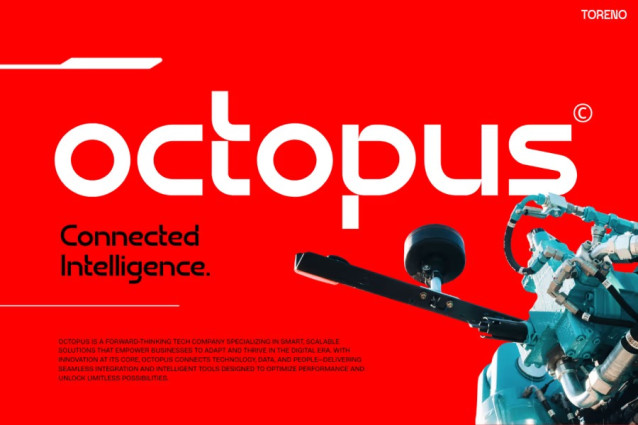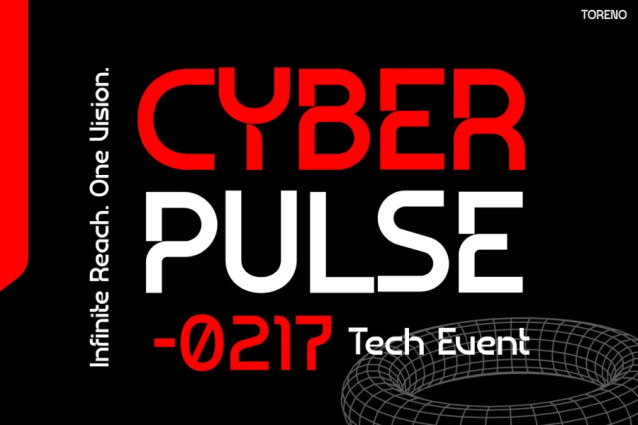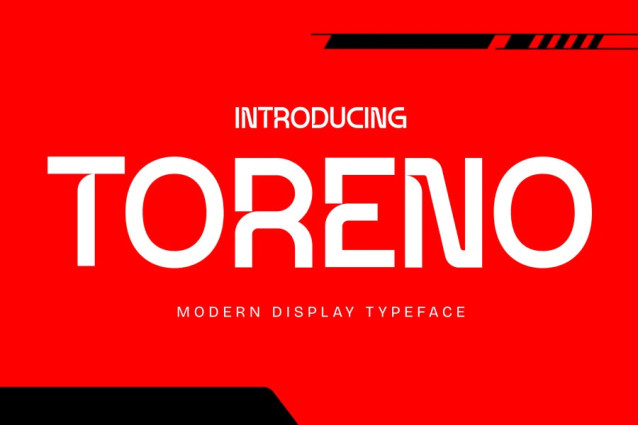
Toreno Font introduces a bold, modern style that instantly captures attention, and it also adds a clean futuristic presence to any layout. Its sharp geometry and smooth, controlled angles create a strong sense of speed. Moreover, each character feels precise and intentional. Because of this balanced structure, the font delivers both visual strength and professional clarity. Consequently, Toreno becomes an ideal option for projects that require a strong, advanced, and stylish message. The typeface blends sci-fi energy with refined readability, and this makes it suitable for both digital interfaces and printed work.
Futuristic Font Toreno brings high-tech personality into every design, and it also creates a consistent modern tone. The letter shapes feel sharp and confident; furthermore, the geometric outline supports a sleek and progressive style. Toreno works extremely well in tech-themed branding because its lines echo digital motion and cyber elements. In addition, the font maintains excellent balance between bold expression and clean structure. Therefore, it fits perfectly into esport posters, sci-fi titles, AI visuals, product launches, and modern marketing content. Each stroke carries a futuristic mood, and this gives your message a strong forward-thinking feel. Toreno stays readable in large or small sizes, and it continues to deliver strong impact across different platforms. Because of this versatility, it adapts easily to fast-paced digital environments, motion graphics, and innovative brand identities.
Futuristic Font Toreno is perfect for designers, branding studios, tech companies, and creative agencies. Moreover, it suits UI/UX teams, game creators, streamers, YouTubers, and motion graphic artists who want a dynamic, advanced look. You can use it for headlines, website interfaces, blog covers, poster layouts, and advertisement banners. It also works well for product packaging, cyberpunk themes, gaming overlays, sci-fi trailers, and digital presentations. Additionally, Toreno supports creators who want a clean but energetic tone, especially in projects where strong identity and modern visuals are important. Anyone who needs a bold, future-ready aesthetic will find this font highly valuable.
Futuristic Font Toreno helps your design stand out with bold style, sharp precision, and a distinctly futuristic identity. It adapts smoothly to many creative needs, and it also enhances branding with consistent professional energy. Consequently, Toreno becomes an essential resource for creators who want to express innovation and strong visual character. Add Toreno to your collection today and give your projects a powerful, future-inspired upgrade.